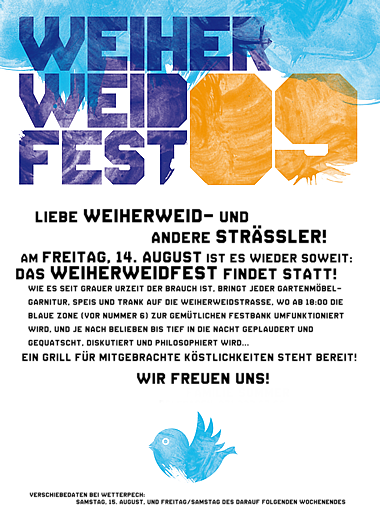
Disparador Filled
Clone of
Disparador
with filled closed counters. Looks pretty stylish if used properly...
Solid!
Very nice and harmonious.
It's chunky man :)
echt geil!